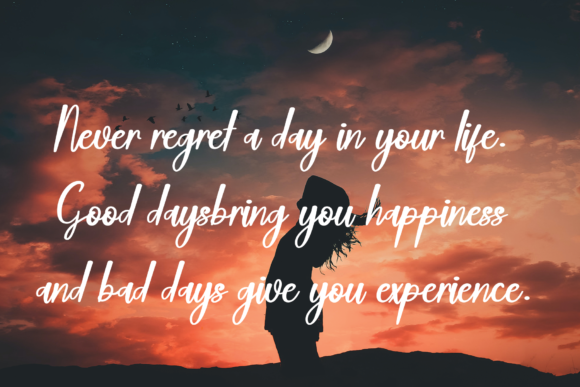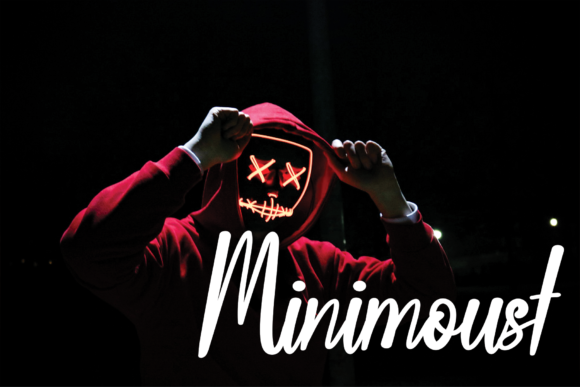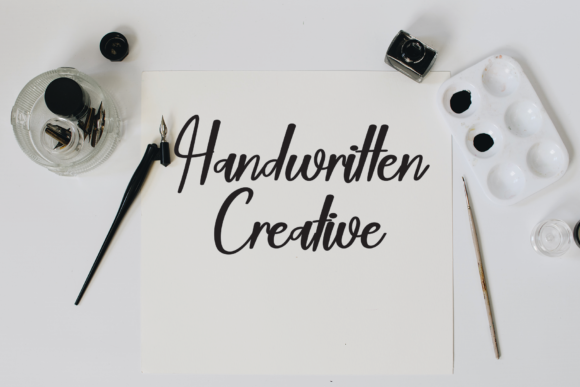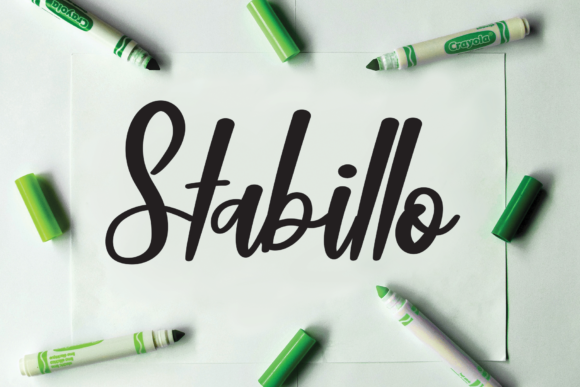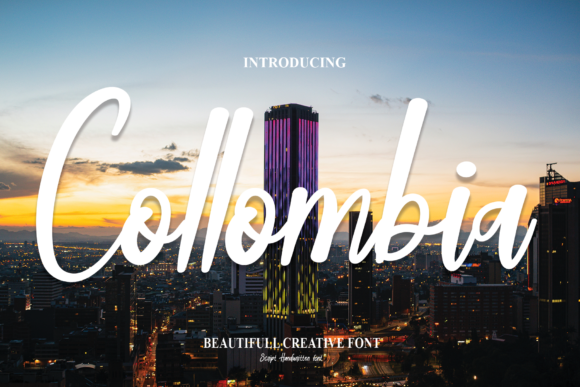
Introducing Collombia Font: The Perfect Handwritten Font for Your Creative Projects
Are you a designer or crafter looking for a unique and elegant font to add a personal touch to your creative projects? Look no further than Collombia Font! This simple, yet distinctive handwritten font is perfect for a wide range of applications, from wedding invitations and business cards to greeting cards, social media posts, and wall art.
What Makes Collombia Font So Special?
Collombia Font is a one-of-a-kind handwritten font that boasts a unique and adaptable style. Its elegant and refined appearance makes it perfect for projects that require a touch of sophistication and class. Whether you’re designing a wedding invitation or a business card, Collombia Font is sure to make a lasting impression.
Key Features of Collombia Font
- Simple and Unique: Collombia Font features a simple, yet distinctive design that sets it apart from other fonts.
- Adaptable: This font is highly versatile and can be used in a wide range of creative projects.
- Elegant: Collombia Font boasts an elegant and refined appearance that is perfect for projects that require a touch of sophistication.
- Handwritten: This font features a beautiful handwritten style that adds a personal touch to any project.
Uses for Collombia Font
Collombia Font is incredibly versatile and can be used in a wide range of creative projects, including:
- Wedding Invitations: Add a touch of elegance and sophistication to your wedding invitations with Collombia Font.
- Business Cards: Stand out from the crowd with a unique and memorable business card featuring Collombia Font.
- Greeting Cards: Create beautiful and heartfelt greeting cards for any occasion with Collombia Font.
- Social Media Posts: Add a personal touch to your social media posts with Collombia Font.
- Wall Art: Create stunning wall art with Collombia Font that is sure to impress.
Why Designers and Crafters Love Collombia Font
Designers and crafters love Collombia Font for its unique and adaptable style. This font is perfect for anyone looking to add a personal touch to their creative projects. With Collombia Font, you can:
- Create Unique Designs: Collombia Font allows you to create unique and eye-catching designs that stand out from the crowd.
- Add a Personal Touch: This font adds a personal touch to any project, making it perfect for crafters and designers who want to create something special.